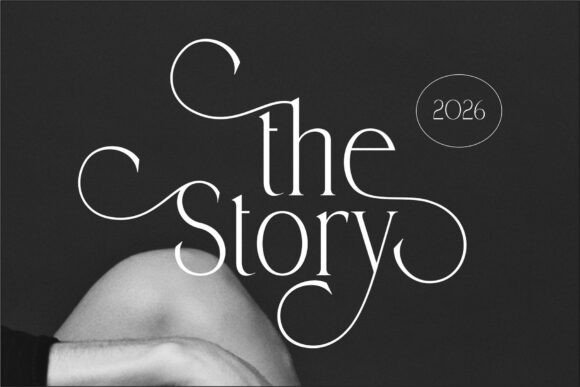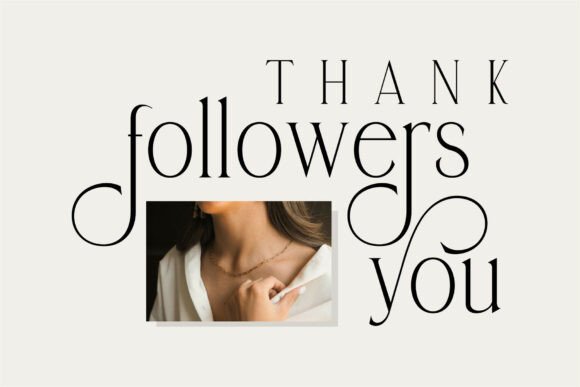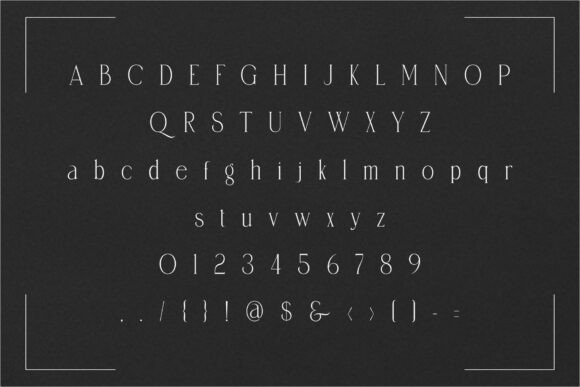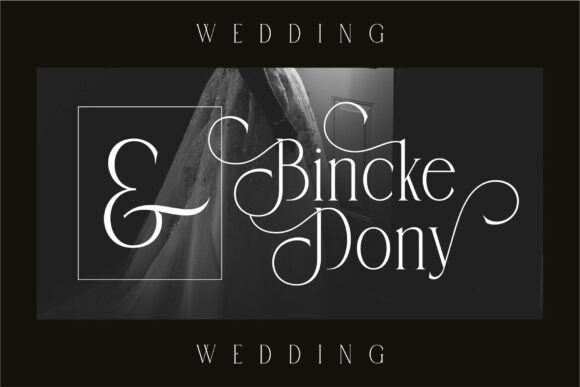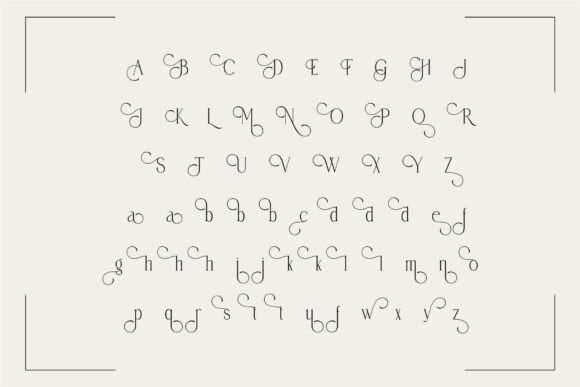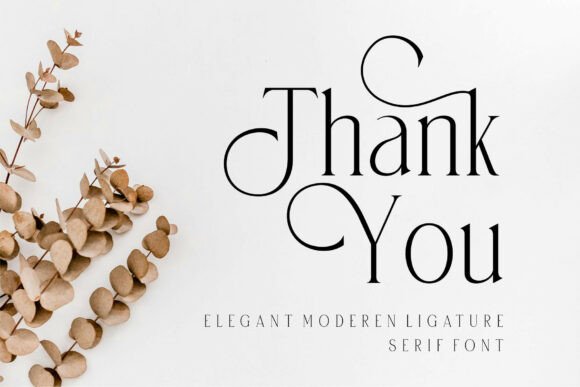
Introducing Amerta Font: Elevate Your Designs with Elegance and Sophistication
In the world of typography, a new star has emerged: Amerta Font. This modern, elegant, and fashionable serif font is making waves in the design community with its versatility, stylish extras, and range of weights. Whether you’re a professional designer, a crafty DIY enthusiast, or a business owner looking to elevate your brand, Amerta Font is an excellent choice for creating classy, elegant, and unique logos, branding materials, and designs.
The Amerta Font Advantage: A Perfect Blend of Style and Functionality
Amerta Font boasts a perfect blend of modernity and classic sophistication. Its serif design adds a touch of elegance and refinement, making it ideal for projects that require a high level of professionalism. The font comes in various weights, allowing designers to experiment with different styles and tones to match their brand’s personality. Whether you need a bold statement piece or a subtle, sophisticated look, Amerta Font has got you covered.
Key Features of Amerta Font
- Modern and Elegant Design: Amerta Font features a sleek, contemporary design with elegant serifs, making it perfect for branding, logos, and high-end designs.
- Variety of Weights: With multiple weights to choose from, designers can tailor their text to convey the desired tone and style, from light and airy to bold and impactful.
- Stylish Extras: Amerta Font comes with additional stylish elements, such as swashes and alternative characters, allowing designers to add a personal touch to their work.
- Versatility: This font is not just limited to logos and branding; it’s also suitable for editorial design, packaging, and any project requiring a touch of sophistication.
Why Choose Amerta Font for Your Design Projects?
Amerta Font stands out from the crowd for several reasons. Firstly, its unique blend of modernity and elegance ensures that your designs will be instantly eye-catching and memorable. Secondly, its versatility means you can use it across a wide range of projects, from digital platforms to print materials. Lastly, the font’s stylish extras provide endless opportunities for customization, allowing you to create truly one-of-a-kind designs.
Amerta Font in Action: Bringing Your Brand to Life
Imagine being able to convey your brand’s message with clarity, elegance, and impact. With Amerta Font, you can achieve just that. Here are a few examples of how Amerta Font can elevate your design projects:
- Logo Design: Create a lasting impression with a custom logo that exudes sophistication and style.
- Branding Materials: Ensure consistency across all your branding materials, from business cards to billboards, with a font that screams professionalism.
- Editorial Design: Add a touch of elegance to your publications, whether it’s a magazine, a book, or an online article.
Amerta Font is more than just a typeface; it’s a design statement. With its modern elegance, range of weights, and stylish extras, it offers designers and crafters the perfect tool to create unique, sophisticated designs. Whether you’re looking to elevate your brand, create stunning logos, or simply add a touch of class to your projects, Amerta Font is an excellent choice. So why wait? Dive into the world of Amerta Font today and discover a new level of design sophistication.